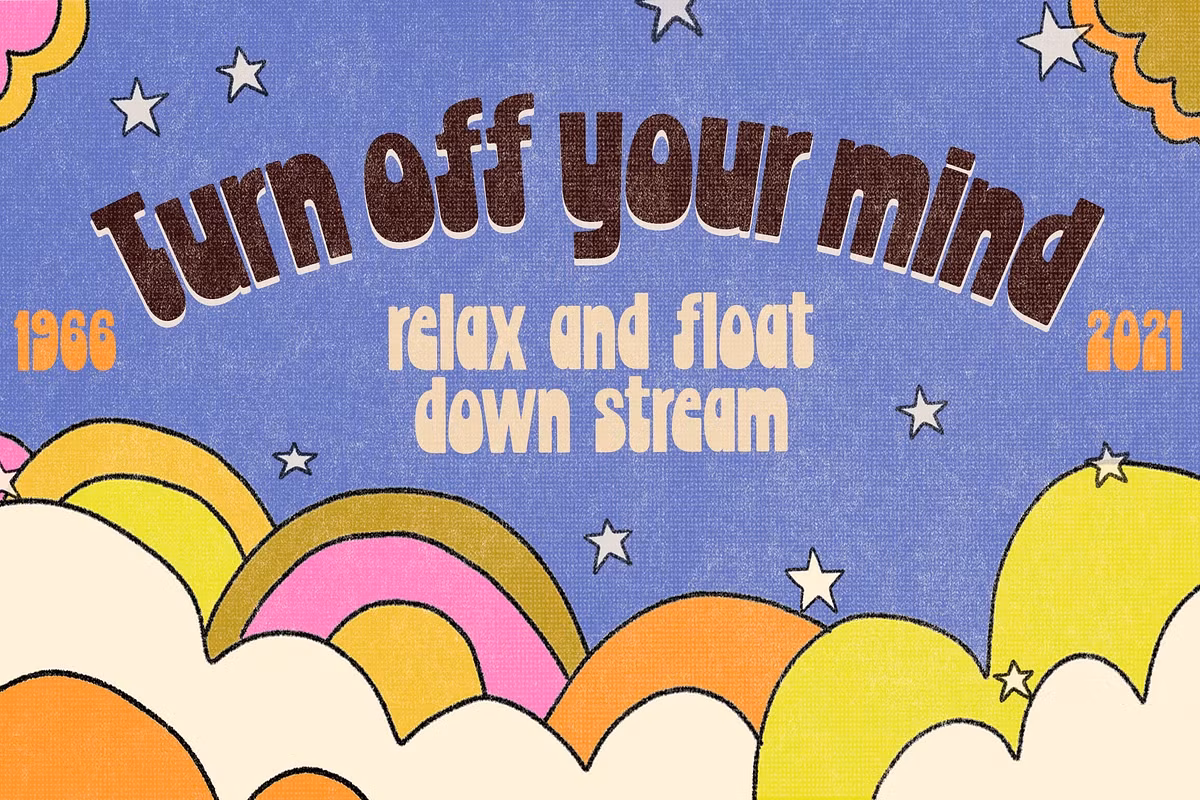
Step back into a golden era of design with Chorine Family | Two Retro Fonts Free Download. This nostalgic type duo delivers vintage charm with a modern twist—perfect for posters, logos, product packaging, branding, and editorial layouts that crave a bold, retro aesthetic.
The Chorine Family includes two unique styles that work beautifully together or on their own. One offers a bold, attention-grabbing look, while the other features soft curves and classic letterforms, giving you creative flexibility when testing retro-inspired compositions. Each style includes uppercase and lowercase letters, numerals, and punctuation.
Whether you're aiming for a 70s vibe or timeless retro flair, this font duo brings character and versatility. For any commercial use, make sure to purchase the appropriate license. Download Chorine Family | Two Retro Fonts Free Download today and give your designs a groovy, nostalgic twist.